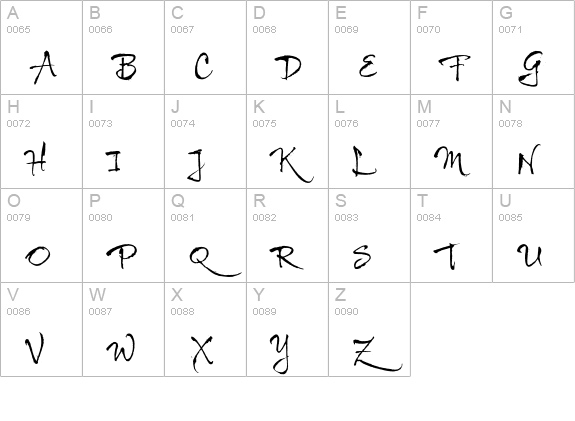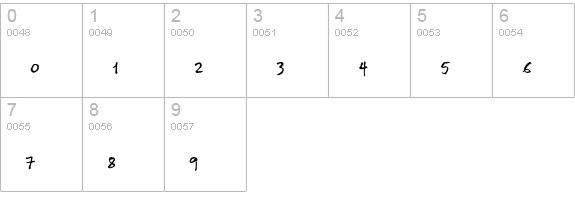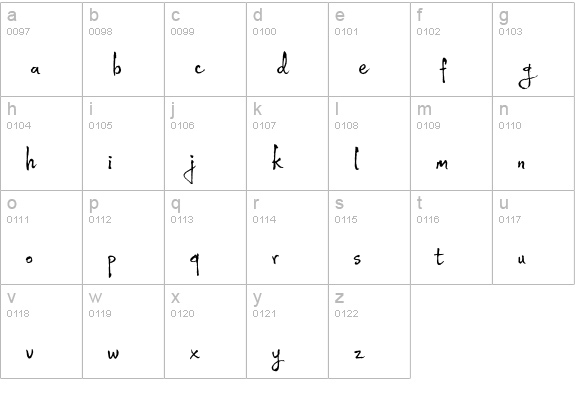
Wild Pen 1 Font Details
Introducing Wild Pen 1 font, a dynamic and expressive typeface that captures the essence of untamed creativity. With its bold strokes and playful curves, this font exudes a sense of energy and free-spiritedness that is sure to make your designs stand out. Ideal for projects that demand a touch of spontaneity and originality, Wild Pen 1 font brings a sense of adventure to any design endeavor. Whether you're working on branding, posters, invitations, or social media graphics, this font will infuse your creations with a sense of excitement and personality. And the best part? Wild Pen 1 font is completely free to download at FontsMarket.com, making it accessible to everyone looking to add a touch of wildness to their designs. Don't miss out on this opportunity to unleash your creativity with Wild Pen 1 font!